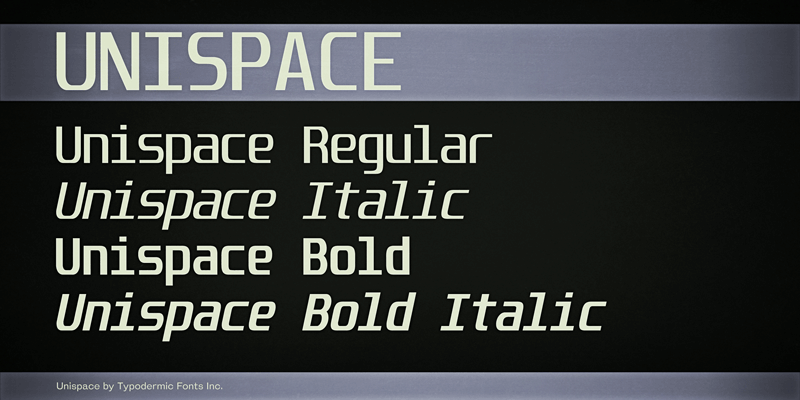
Unispace is monospaced for all your monospaced font needs. Proportional spacing be damned: monospacing is what all the cool kids are doing. These fonts include a license that allows free commercial use: sometimes referred to as a desktop license. This allows you to install the fonts on a computer and use them to create posters, web graphics, game graphics, t-shirts, videos, signs, logos and more. Read the license agreement for details. If you'd like to embed these fonts in an app, ebook, on the web or anything that's not covered by the desktop license agreement, visit the link below. You'll find distributors who offer different types of licenses or you can contact me for help. http://typodermicfonts.com/unispace/ |